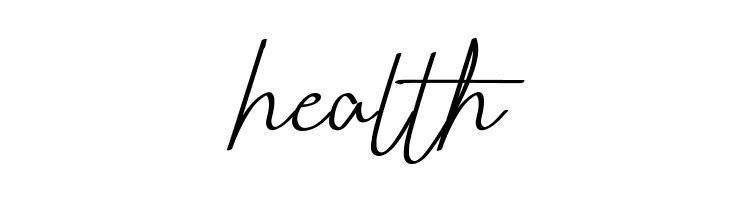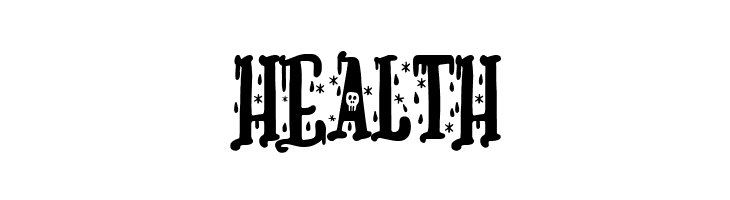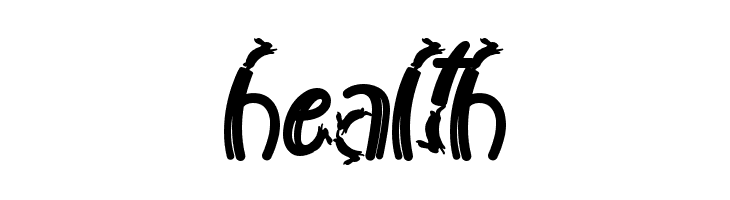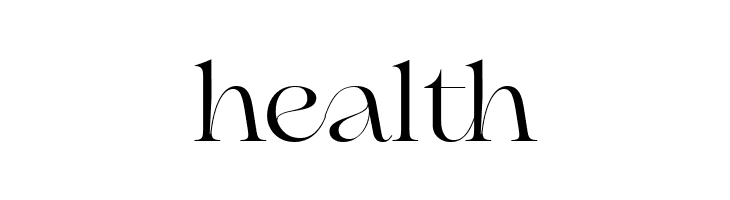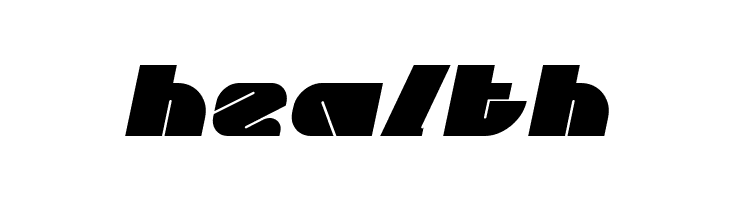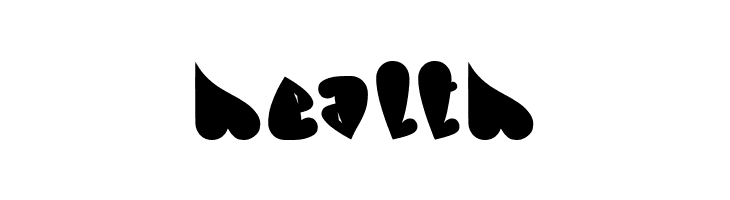
A fluid and elegant script font with graceful curves and a handwritten feel.
A bold, playful font with whimsical curves and a lively, informal style.
A dynamic and elegant script font with flowing, connected strokes.
A bold, decorative font with playful skull and star embellishments.
A whimsical, nature-inspired decorative font with playful elements.
An elegant serif font with decorative swirls and classic elements.
A bold, decorative font with intricate patterns and festive elements.
A whimsical, heart-themed decorative font with hollow characters.
A bold, geometric, and italicized font with a futuristic style.
A bold, heart-themed font with playful and romantic elements.